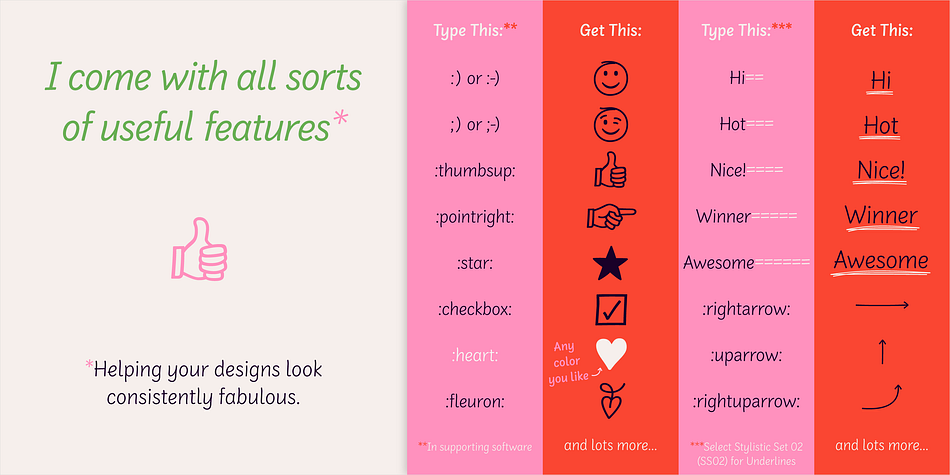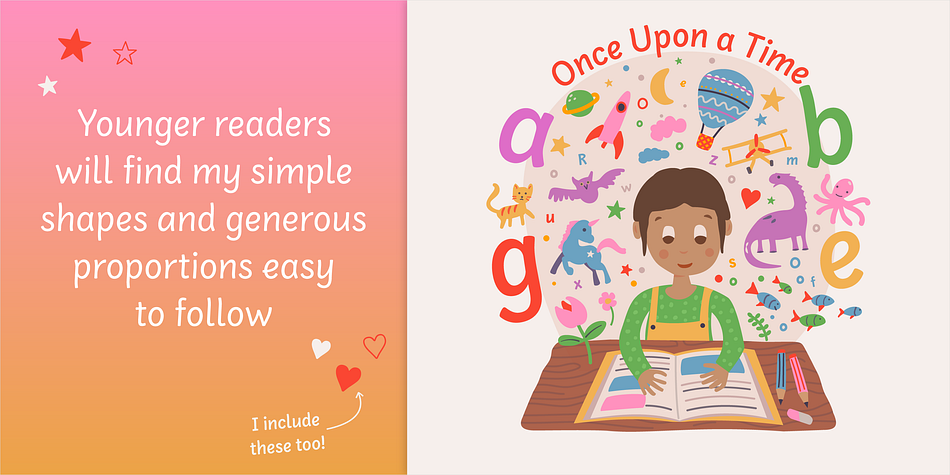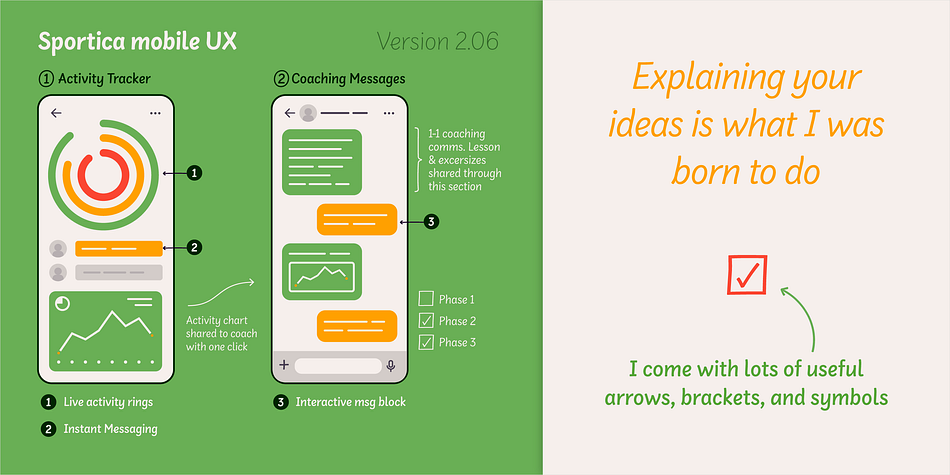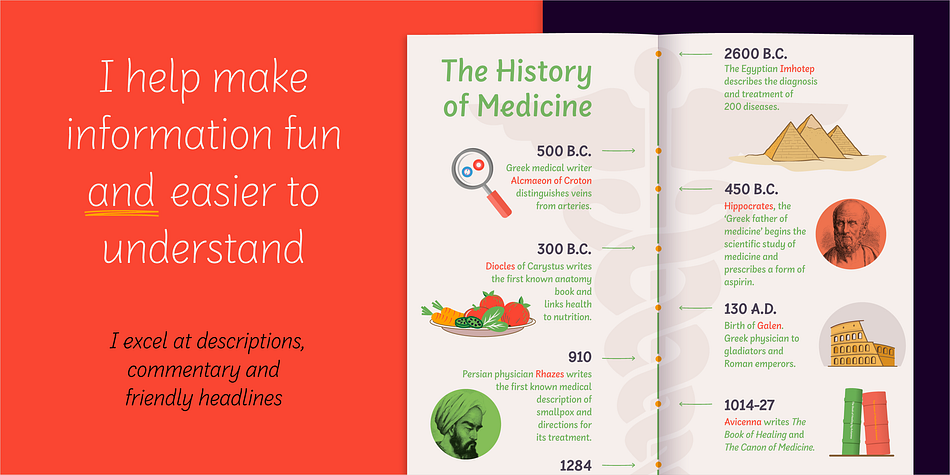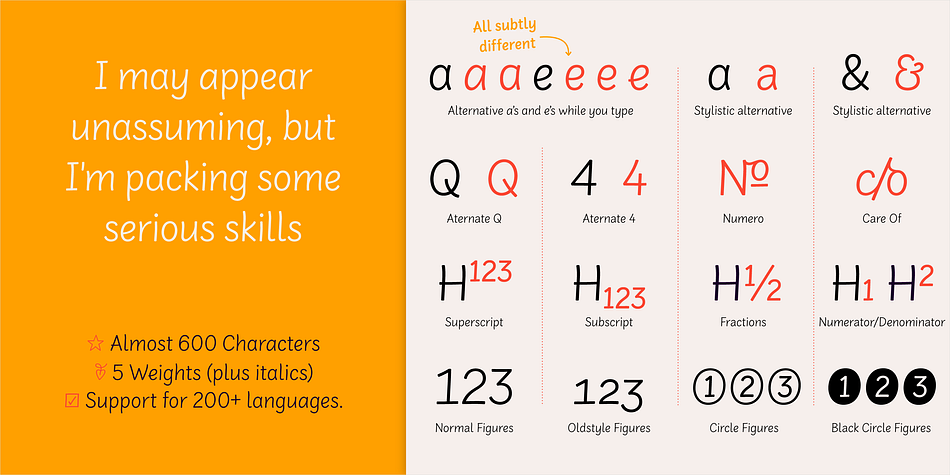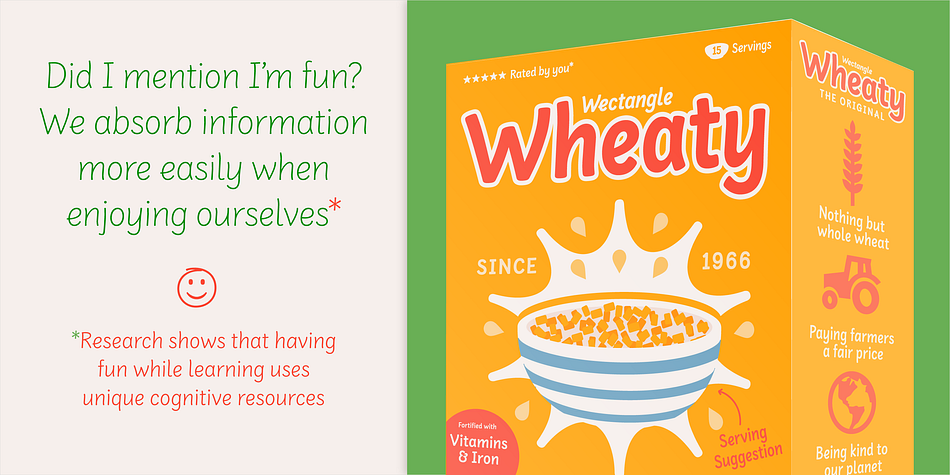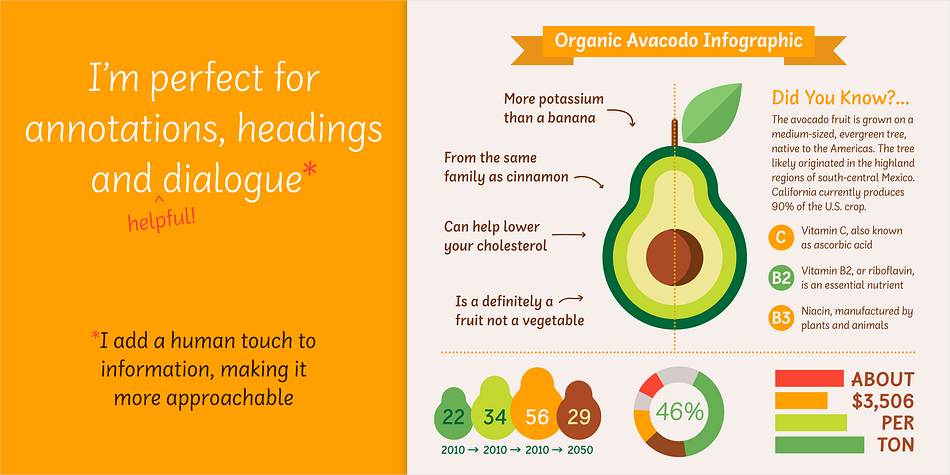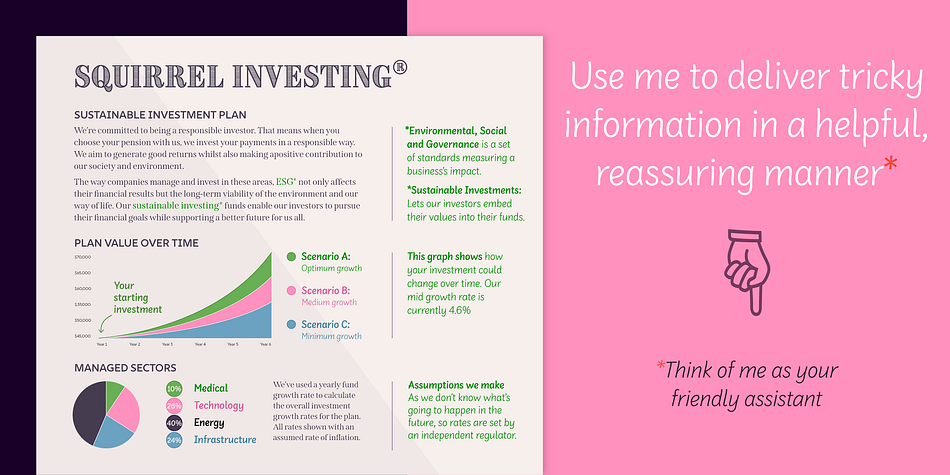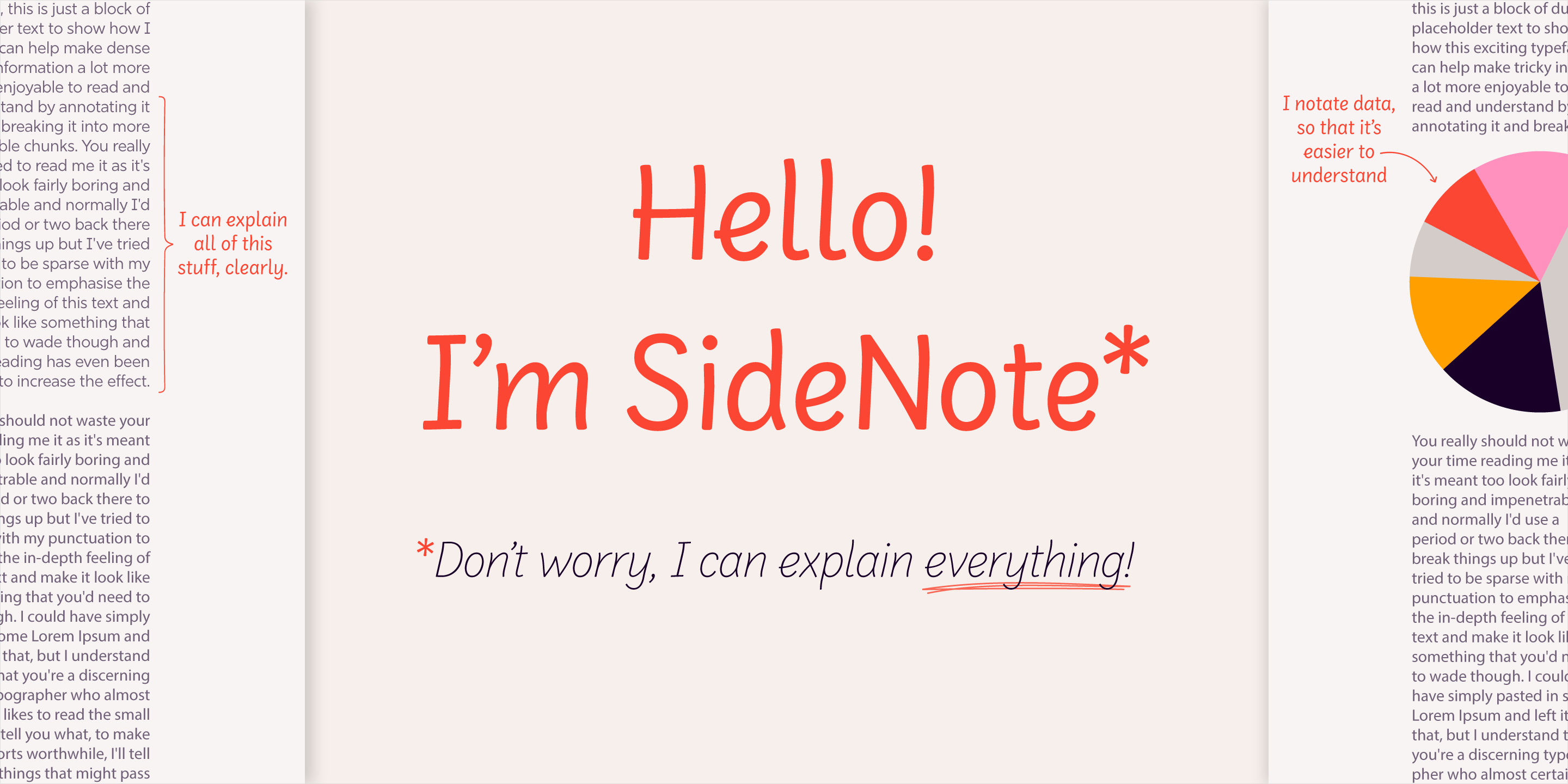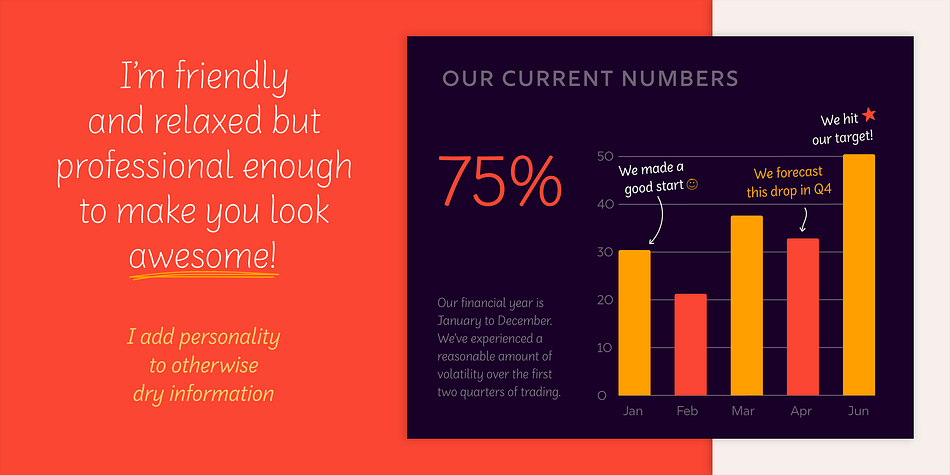
SideNote
Designed by Jamie Clarke and Borys Kosmynka, SideNote is a hand drawn font family. This typeface has ten styles and was published by Jamie Clarke Type.
Hello! I’m SideNote. I specialize in annotations, headings and friendly dialogue.
I’m perfect for descriptions and explanatory text. Use me to deliver tricky information in a helpful, reassuring manner.
I look friendly and relaxed but professional enough to make you look awesome. I add personality to otherwise dry information making it fun and easier to understand.
Whether you’re pulling some slides together or explaining your work, think of me as your friendly assistant
I come with all sorts of useful features, like emoji, arrows and underlines.